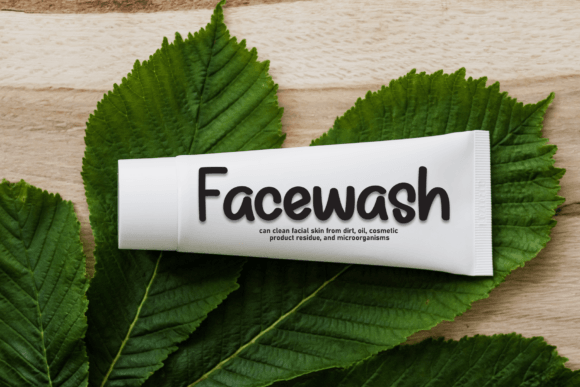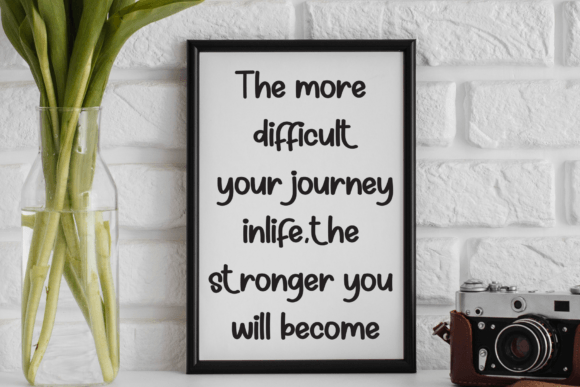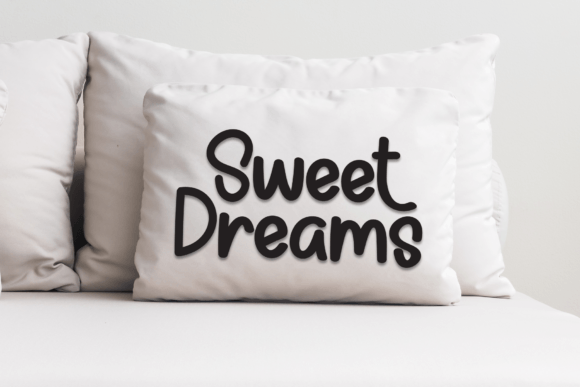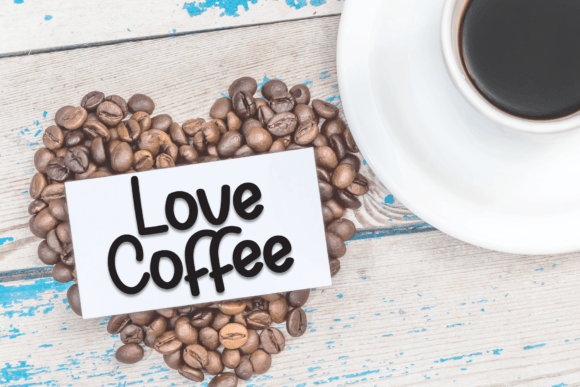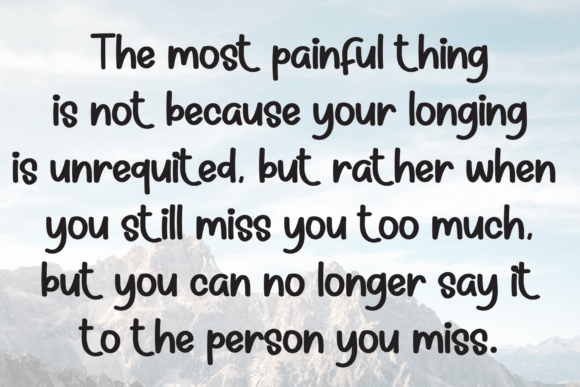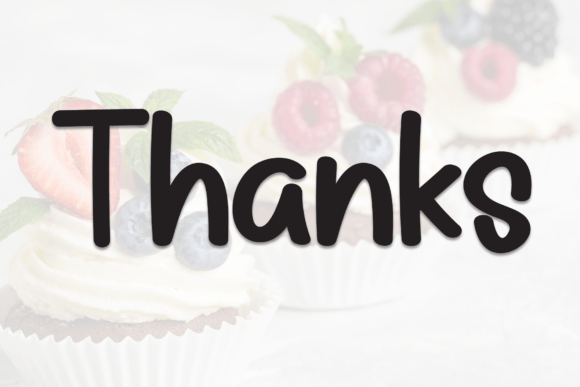
The Sweet Taste of Typography: Discover Cupcake Font
Remember that moment when a spark of creativity hits you and you just can’t wait to bring your idea to life? For designers, this feeling is all too familiar. It’s the thrill of brainstorming a new project, imagining the perfect layout, and searching for the perfect font to match your vision. That’s where the Cupcake Font comes in – a delightful, handwritten font that’s sure to make your design stand out from the crowd.
This charming font is designed to be versatile and adaptable, making it the perfect addition to any design project. Whether you’re creating a whimsical wedding invitation, a playful blog post, or a cheerful social media graphic, the Cupcake Font is sure to add a touch of personality and warmth. Its natural, handwritten style is both unique and approachable, making it a valuable asset for designers looking to add a human touch to their work.
Cupcake Font Key Features
- Font Family: Cupcake Font is a unique, hand-drawn font designed for various applications, including baking, cooking, and food-related businesses.
- Size: The font is available in a single weight, making it ideal for logos, headings, and short text passages.
- Unique Characteristics: The Cupcake Font features a playful, handwritten style with subtle flourishes and imperfections, giving it a charming and personal touch.
- Character Set: The font includes a comprehensive character set, including uppercase and lowercase letters, numbers, and punctuation marks.
Cupcake Font Review
First off, I love the whimsical feel of Cupcake Font! ✨ The subtle imperfections and sweet details make it a delightful choice for bakeries, cafes, or any food-related branding. The font is well-suited for titles, headings, and short text snippets where you want to add a touch of playfulness.
- Perfect for food-related brands, especially bakeries and cafes
- Whimsical feel adds a touch of personality to your brand
- Subtle imperfections give the font a handmade feel
- Well-suited for titles, headings, and short text snippets
- May not be suitable for large blocks of text, as it can become overwhelming
- May not be legible in smaller font sizes
- Does not support extended character sets, which may limit its use in multilingual contexts
Overall, Cupcake Font is a charming choice for food-related brands looking to add a touch of whimsy to their branding. While it may not be suitable for all types of projects, it’s a great option for titles, headings, and short text snippets where you want to add a playful feel.
For best results, use the Cupcake Font in conjunction with colorful graphics and playful design elements.
For a cohesive look, pair the Cupcake Font with matching font colors and design elements.
For a professional look, use the Cupcake Font sparingly and in conjunction with clear headings and concise text.
Tips for Getting the Most Out of the Cupcake Font
Use the Cupcake Font for playful, whimsical designs, such as:
Children’s party invitations
Food blogs and recipe cards
Wedding and baby shower decorations
Experiment with different font sizes and colors to add visual interest to your designs.